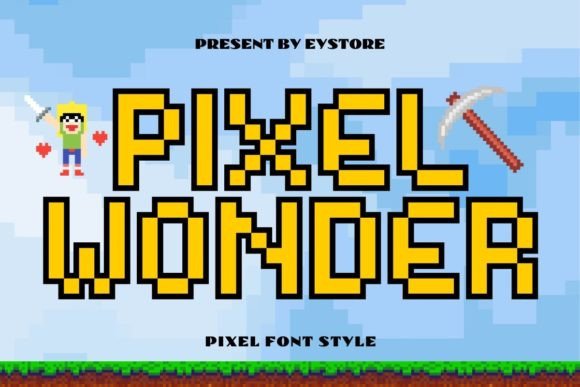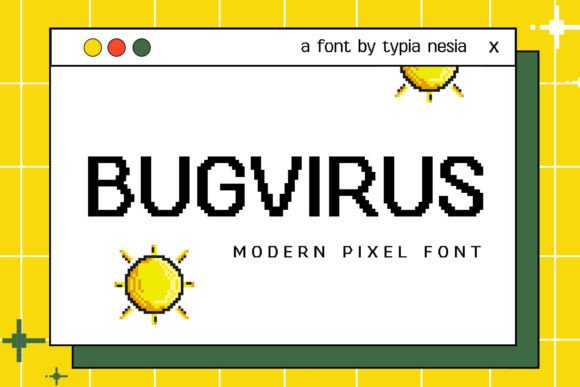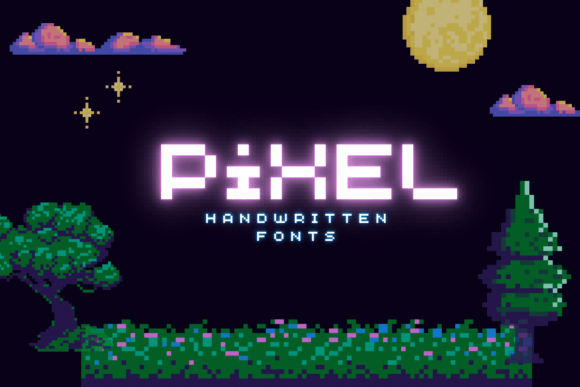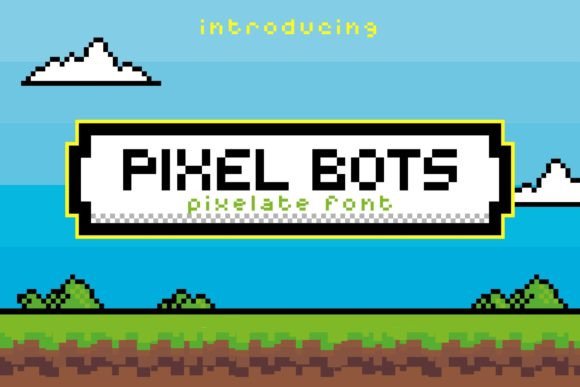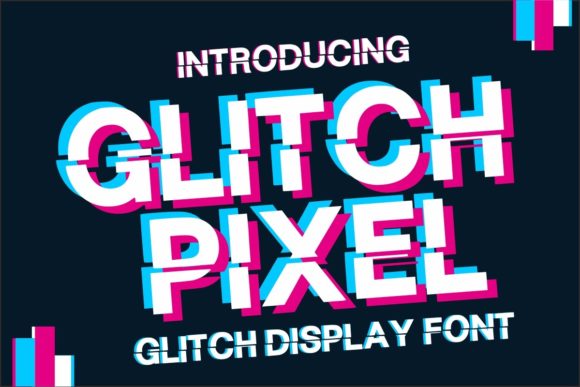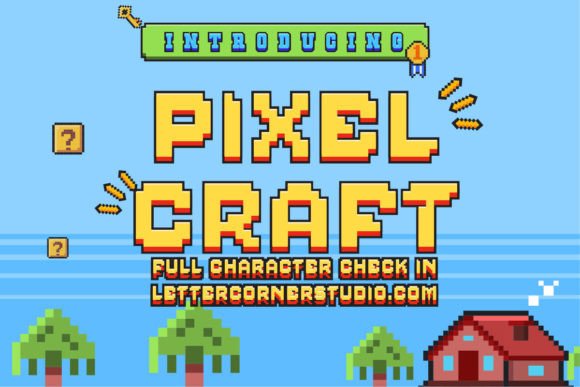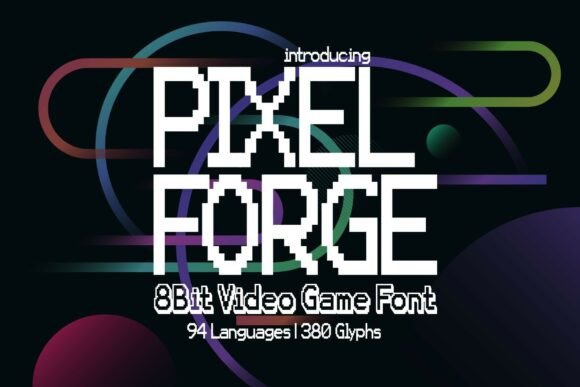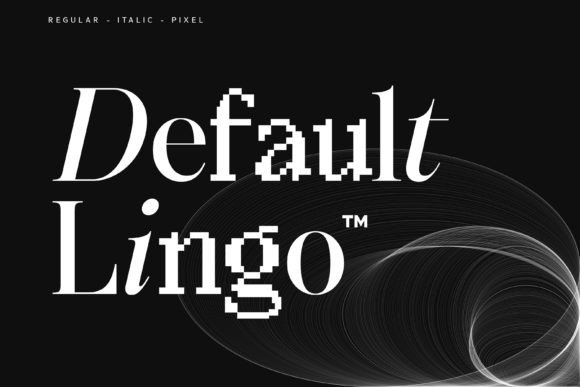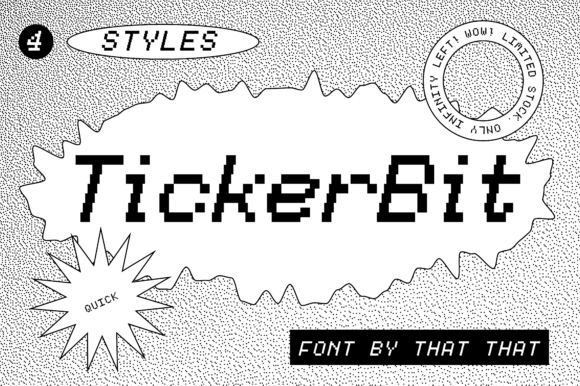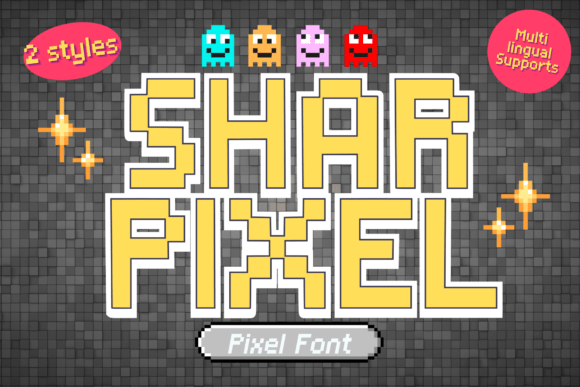
Handpicked retro-style pixel typefaces for bold visuals, instant nostalgia, and sharper designs in one binge-worthy roundup.
This handpicked TOP 55 gathers the most eye-catching pixel fonts and assets from retro arcade vibes to quirky voxel looks. Each file is ready to drop straight into your layouts, giving you bold headlines, playful UI, and nostalgic graphics without wrestling with complex tools.
1. Pixel Wonder Display Font
Pixel Wonder is an energetic display font with bold, dynamic characters and a daring edge. It includes a full set of lively letterforms that add whimsical, inventive flair.
2. Bugvirus Pixel Font
Bugvirus is a retro pixel font inspired by classic gaming and digital tech. Crisp blocky glyphs deliver an authentic 8-bit look for bold, nostalgic typography.
3. Pixel Handwritten Font
Pixel is a handwritten font with a casual, personal texture. It supports notes, diaries, and greeting cards, and adapts well to banners, apparel, stationery, and social posts.
4. Pixel Bots Retro Display Font
Pixel Bots is a crisp pixel display font with bold, blocky forms and a classic arcade feel. It includes a full character set suited to headlines, posters, and graphic designs.
5. Glitch Pixel Display Font
Glitch Pixel is a bold display font with a dynamic glitch effect and crisp pixel edges. It includes a full alphabet with numerals and punctuation for striking headlines and marks.
6. Pixelcraft Retro Pixel Font
Pixelcraft is a crisp retro pixel font with a classic game-era feel. It includes a full pixel-style character set that keeps designs bold and readable.
7. Pixel Forge
Bold, grid-built pixel display font with crisp geometry and strong readability. Includes a matching 3D style for extra depth and visual punch in headlines and logos.
8. Default Lingo Mixed-Style Typeface
Default Lingo blends regular, italic, and pixel styles into one cohesive typeface. Inspired by Indonesia’s “Bhinneka Tunggal Ika,” it unites contrast for versatile, expressive lettering.
9. TickerBit Pixel Display Font
TickerBit is a crisp pixel display font with a vintage, early-Internet vibe. Includes a full typeface suitable for headlines and body text across print and digital work.
10. Sharpixel Pixel Font
Sharpixel is a bold pixel-style font with stark lines and high legibility. Its classic block forms bring crisp retro character with a modern edge for digital and print.
11. Pixel Stick Retro Display Font
Pixel Stick is a bold pixel display font with a crisp, arcade-inspired look. It delivers strong retro impact for headlines, posters, covers, and graphic layouts.
12. Game Paused Retro Pixel Display Font
Retro pixel display font with a futuristic 00s game vibe and crisp geometric forms. Includes 6 styles: Regular, Slant, Outline, Extrude, Outline Slant, and Extrude Slant.
13. Grumphy Dumphy 90s Pixel Display Font
Grumphy Dumphy is a chunky 90s pixel display font with crisp, blocky edges and arcade energy. Includes a full font set for bold retro headlines and game-style lettering.
14. Ransom Pixel Retro Display Typeface
Ransom Pixel delivers bold, ransom-style letterforms with crisp pixel geometry and a nostalgic arcade edge. Includes 4 pixel cuts for high-contrast mixing and experimental typography.
15. Tallbit Vertical Pixel Font
Clean, vertically stretched pixel type with tall, narrow monospaced letterforms. Delivers a retro-digital, voxel-inspired look with sharp legibility at small sizes.
16. Toy Brick Color Font
Playful toy-brick font with chunky block letters and realistic stud texture. Includes 6 vibrant color styles and 20 matching pixel doodles.
17. Over Pixel Voxel Display Font
Over Pixel is a heavy, square-cut display font with chunky, brick-like letterforms and crisp pixel edges. Inspired by voxel art and sandbox games, it delivers bold structure, fun retro flair, and a full character set for digital titles and UI.
18. Pixel Quest Retro Pixel Font
Retro pixel typeface with bold, rounded 8-bit letterforms and strong readability. Includes game-themed pixel art accents like swords, potions, coins, and icons.
19. Pixelout Psychedelic Pixel Serif Display Font
Bold serif shapes meet a psychedelic vibe with a low-pixel, game-like edge. Includes a full display alphabet with chunky, pixelated strokes for standout titles.
20. Pixel Zone Retro 8-Bit Pixel Font
Bold, clean 8-bit/16-bit pixel font with crisp readability on modern screens. Includes bonus pixel game assets like icons, UI elements, hearts, coins, and buttons.
21. Sky-Pxl Y2K Pixel Display Typeface
Sky-Pxl is a Y2K-inspired pixel display font with neon glitz and pastel-sky charm. It blends retro game vibes with clean modern edges for bold, eye-catching typography.